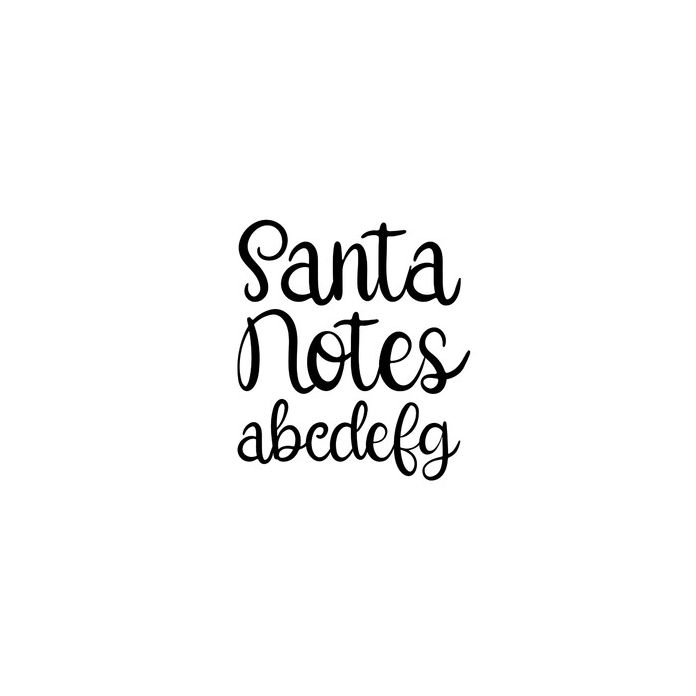
BFC Santa Notes Whimsical Christmas Brush Script Cursive Font
Santa Notes is a whimsical brush script font perfect for Christmas or farmhouse home decor projects.